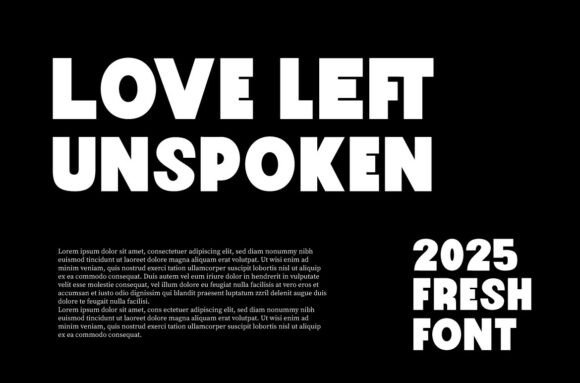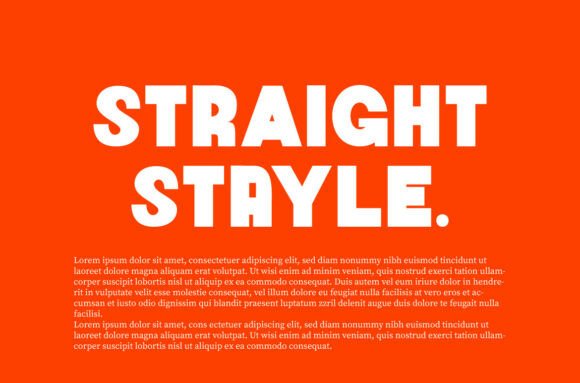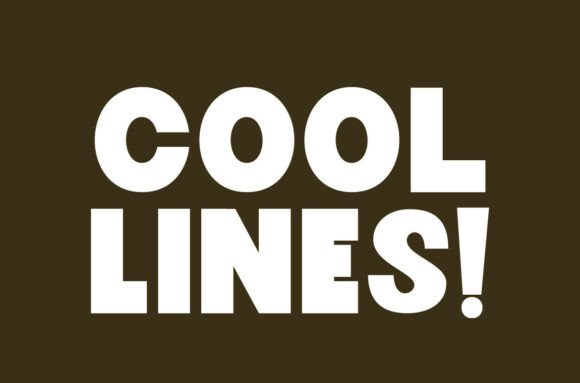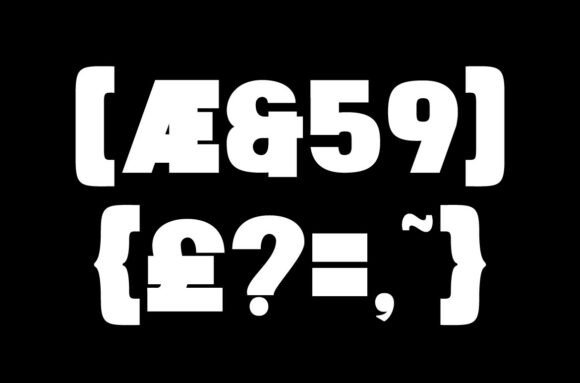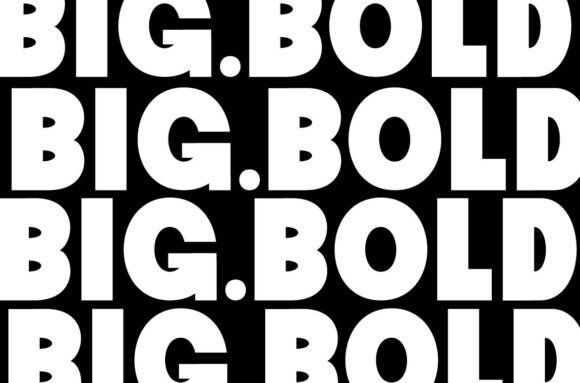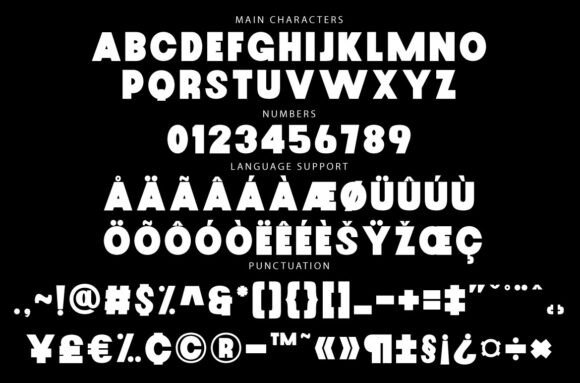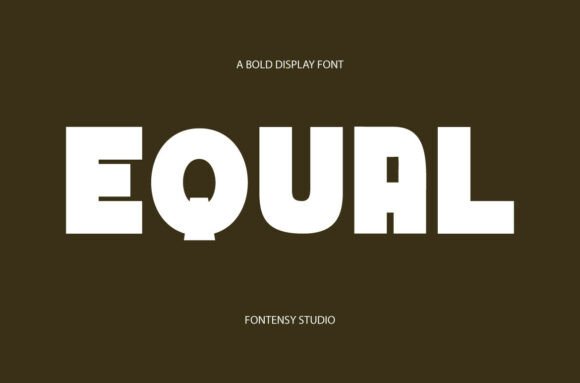
Introducing Equal Font: The Perfect Blend of Bold Geometry and Playful Minimalism
In the world of typography, fonts play a crucial role in conveying messages, expressing emotions, and creating visual identities. For designers and crafters, finding the right font can be a daunting task, especially when it comes to creating clean, typography-focused layouts. This is where Equal Font comes in – a modern display font that seamlessly combines bold geometry with playful minimalism.
What Makes Equal Font Stand Out?
Equal Font boasts a unique design that sets it apart from other fonts. Its rounded edges and strong character design make it an ideal choice for a wide range of applications, from minimalist branding and packaging to bold editorial design, clean menus, posters, and social media graphics.
The font’s bold geometry provides a sense of confidence and stability, while its playful minimalism adds a touch of friendliness and approachability. This blend of characteristics makes Equal Font perfect for designers who want to create visually appealing and effective typography.
Ideal Use Cases for Equal Font
Equal Font is versatile and can be used in various contexts. Here are some ideal use cases:
- Minimalist Branding & Packaging: Equal Font’s clean and simple design makes it perfect for creating minimalist branding and packaging that stands out.
- Bold Editorial Design: The font’s bold geometry and strong character design make it ideal for editorial design, such as magazine covers, article titles, and section headings.
- Clean Menus & Posters: Equal Font’s rounded edges and playful minimalism make it a great choice for creating clean and visually appealing menus and posters.
- Social Media Graphics: The font’s modern and bold design makes it perfect for creating social media graphics that grab attention and convey messages effectively.
Why Choose Equal Font?
There are several reasons why designers and crafters should consider Equal Font for their projects:
- Unique Design: Equal Font’s blend of bold geometry and playful minimalism makes it a unique and refreshing addition to any design.
- Versatility: The font’s versatility makes it suitable for a wide range of applications, from branding and packaging to editorial design and social media graphics.
- Easy to Read: Equal Font’s clean and simple design makes it easy to read, even at smaller sizes.
- High-Quality: The font is designed with high-quality and precision, ensuring that it looks great in any context.
Tips for Using Equal Font Effectively
To get the most out of Equal Font, here are some tips for using it effectively:
- Experiment with Font Sizes: Equal Font looks great at various font sizes, so experiment with different sizes to find the one that works best for your design.
- Pair with Other Fonts: Equal Font can be paired with other fonts to create a unique and visually appealing typography.
- Use Bold and Italic Styles: The font’s bold and italic styles can add emphasis and create visual interest in your design.
- Keep it Simple: Equal Font’s clean and simple design makes it perfect for minimalist designs. Keep your design simple and avoid clutter to get the most out of the font.
Equal Font is a modern display font that combines bold geometry with playful minimalism, making it perfect for clean, typography-focused layouts. Its versatility, unique design, and high-quality make it an ideal choice for designers and crafters looking to create visually appealing and effective typography. Whether you’re working on minimalist branding, bold editorial design, clean menus, posters, or social media graphics, Equal Font is a great choice.